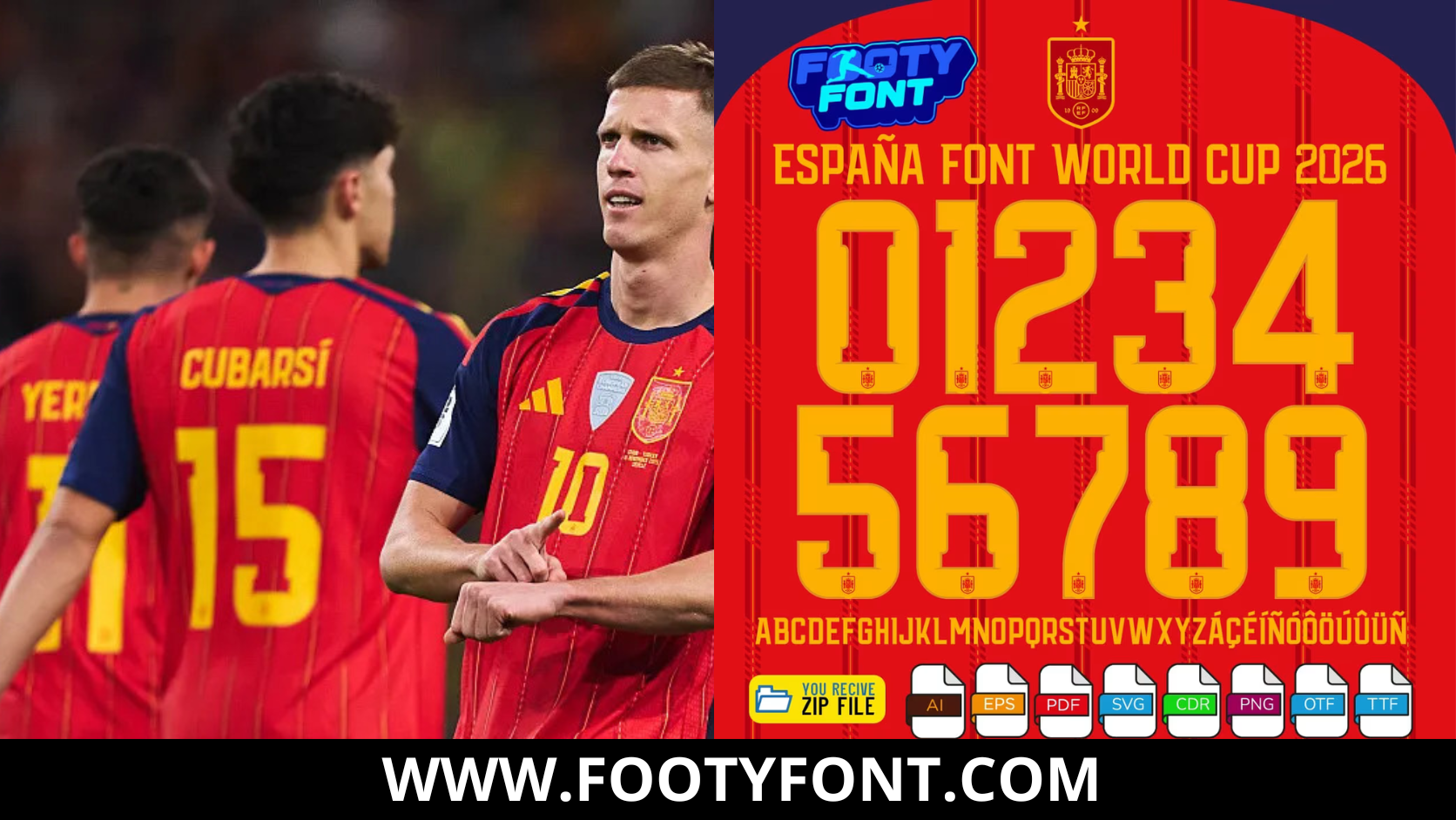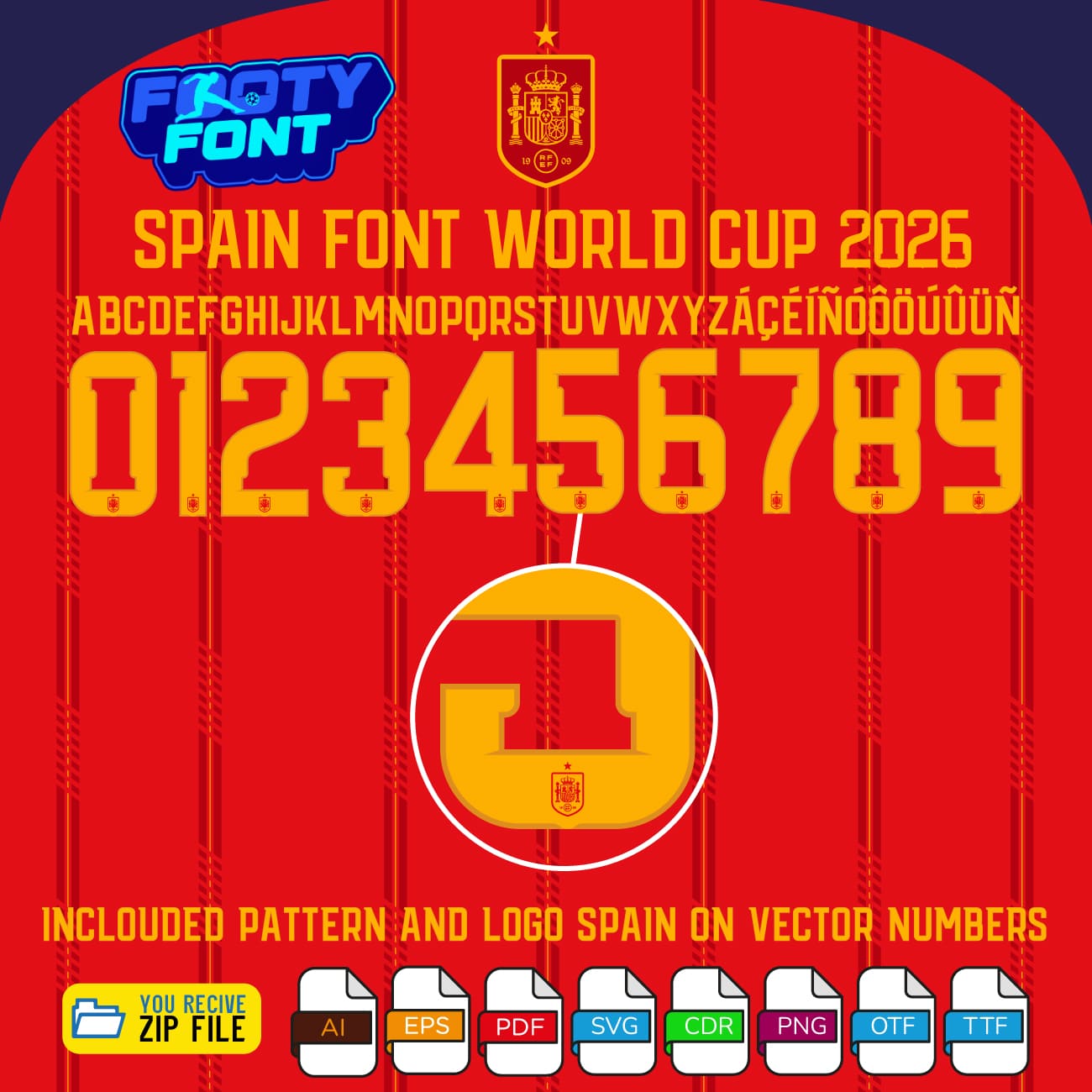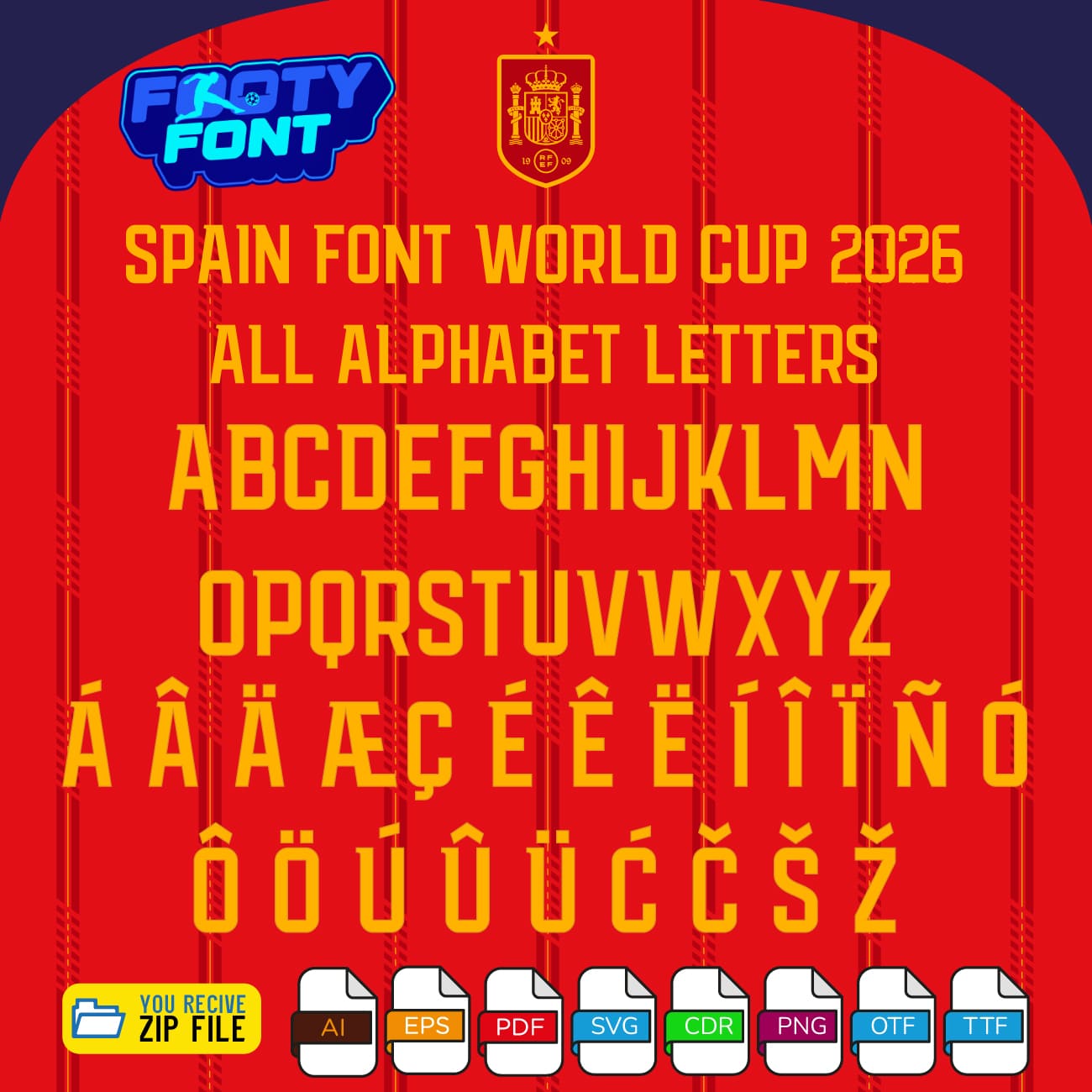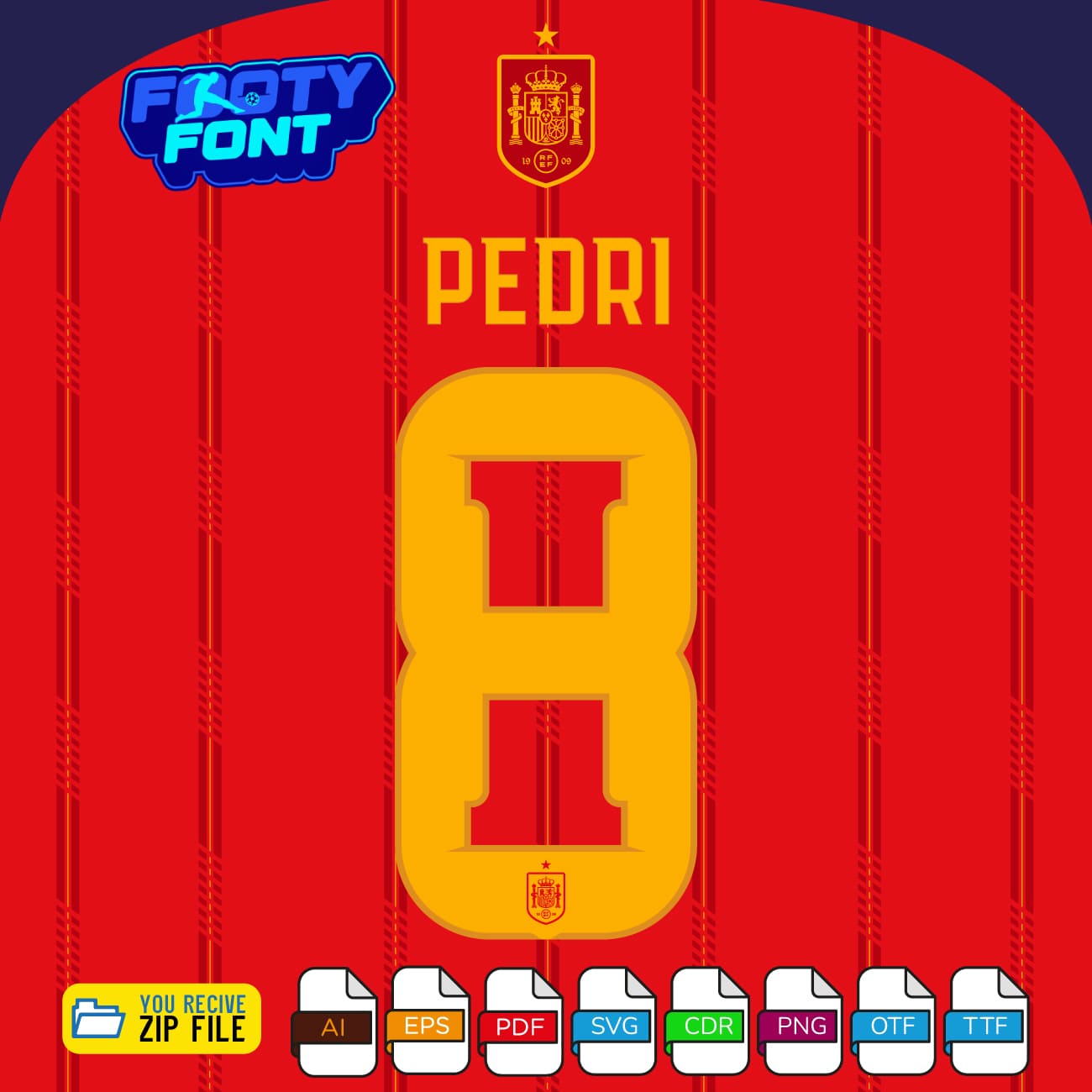
España Font World Cup 2026 – Exclusive Kit Edition
Celebrate the bold identity of La Furia Roja with this premium font inspired by España exclusive 2026 World Cup kit. Designed to replicate the custom typeface worn by the national team – separate from the standard Adidas template – this font brings the energy and elegance of Spanish football to your creative projects.
Worn by the new generation of stars like Lamine Yamal #10, Rodri, and Pedri #8, this font captures the spirit of Spain’s quest for glory. Whether you’re designing custom jerseys, fan posters, or digital artwork, this kit gives you everything you need to create with confidence.
Composite image showing Spanish national team players including Pau Cubarsí and Dani Olmo wearing the red home jersey alongside the complete character set of the Spain Font World Cup 2026 Home.
A complete look at the Spain Font World Cup 2026 Home, featuring the full number set and a real-world match photo of the Spanish national team.
• Unique look inspired by Spain’s exclusive 2026 World Cup kit
España Font 2026 World Cup font showing the complete alphabet and numbers for the exclusive kit.